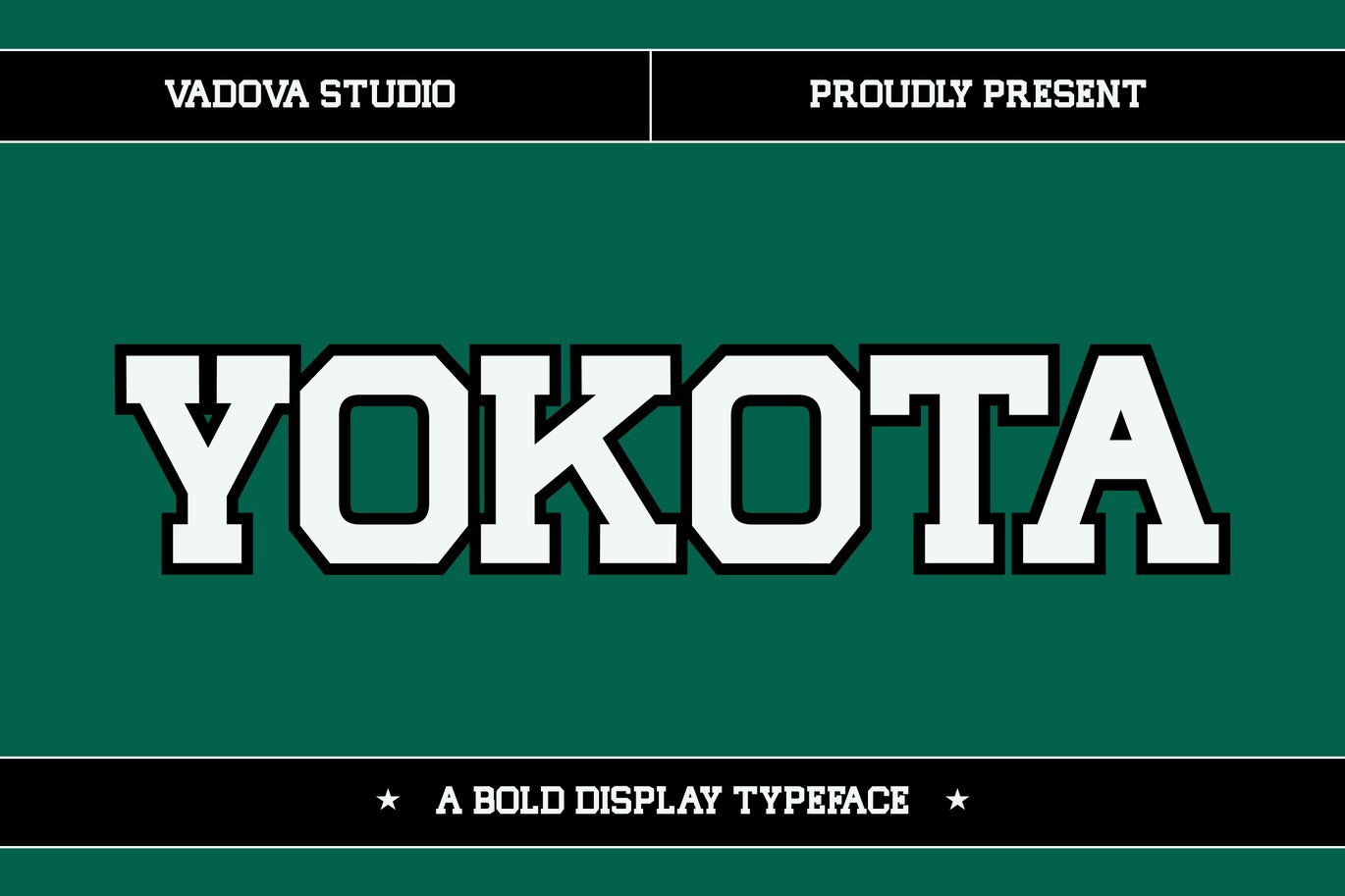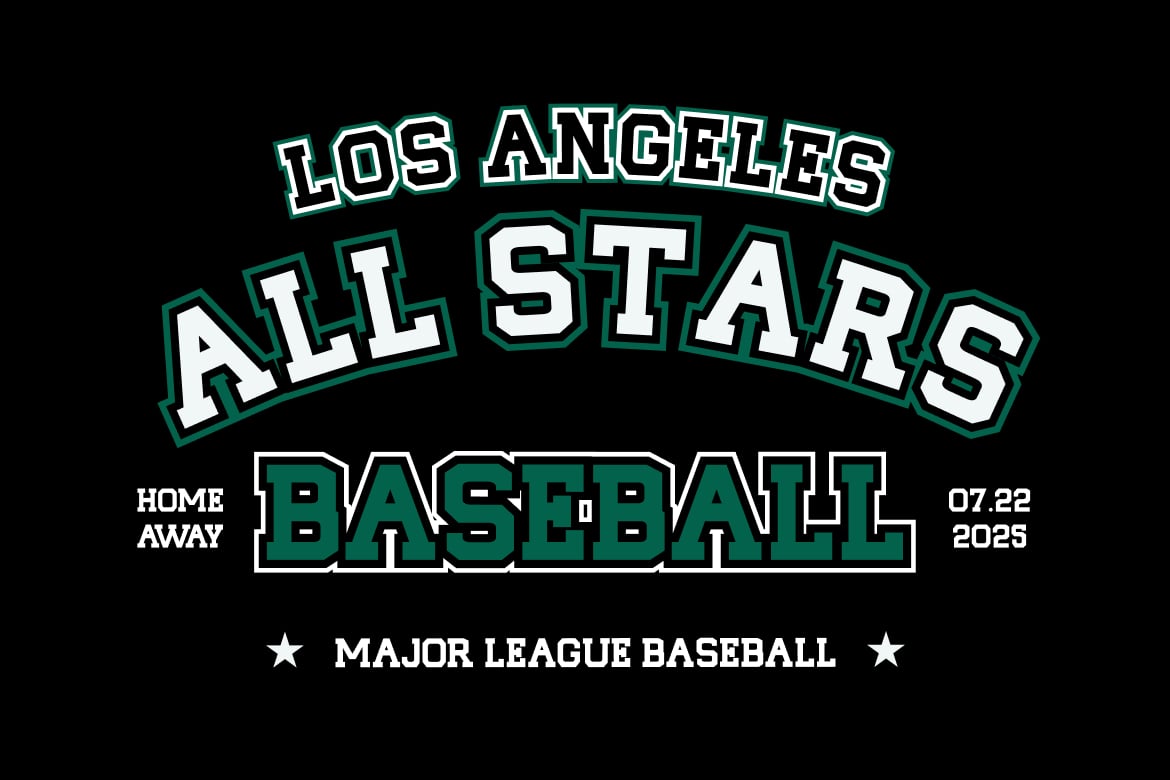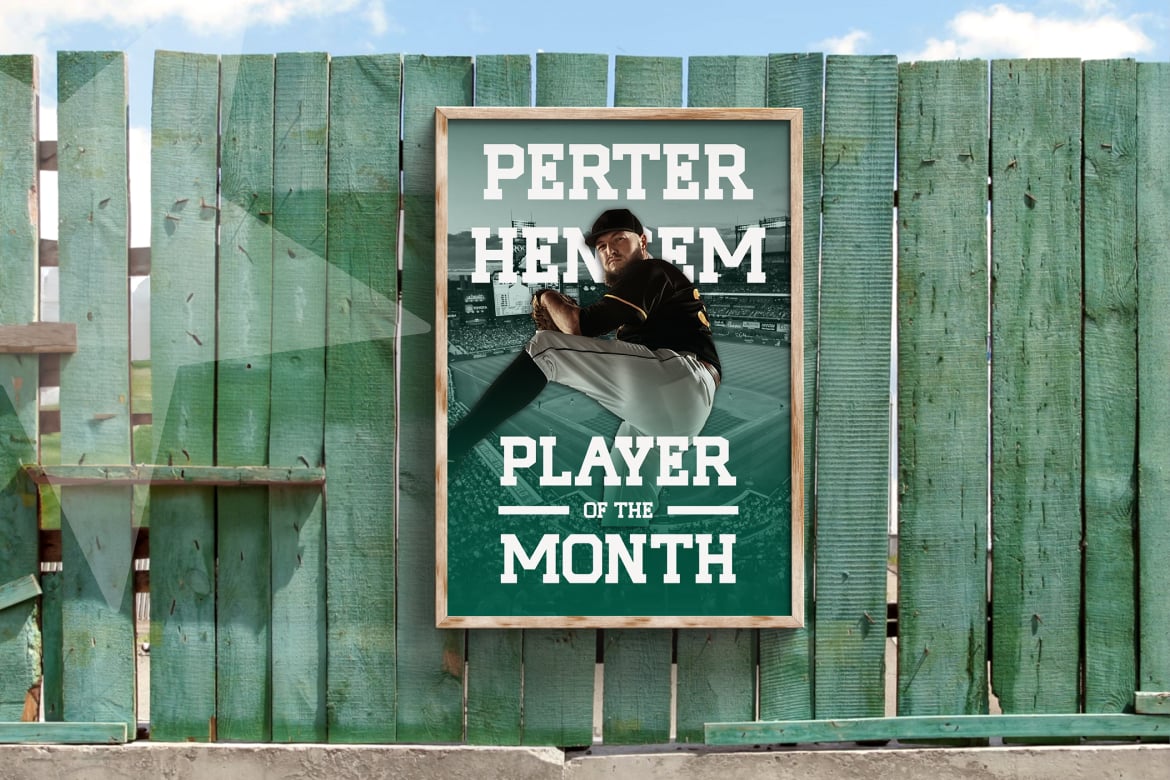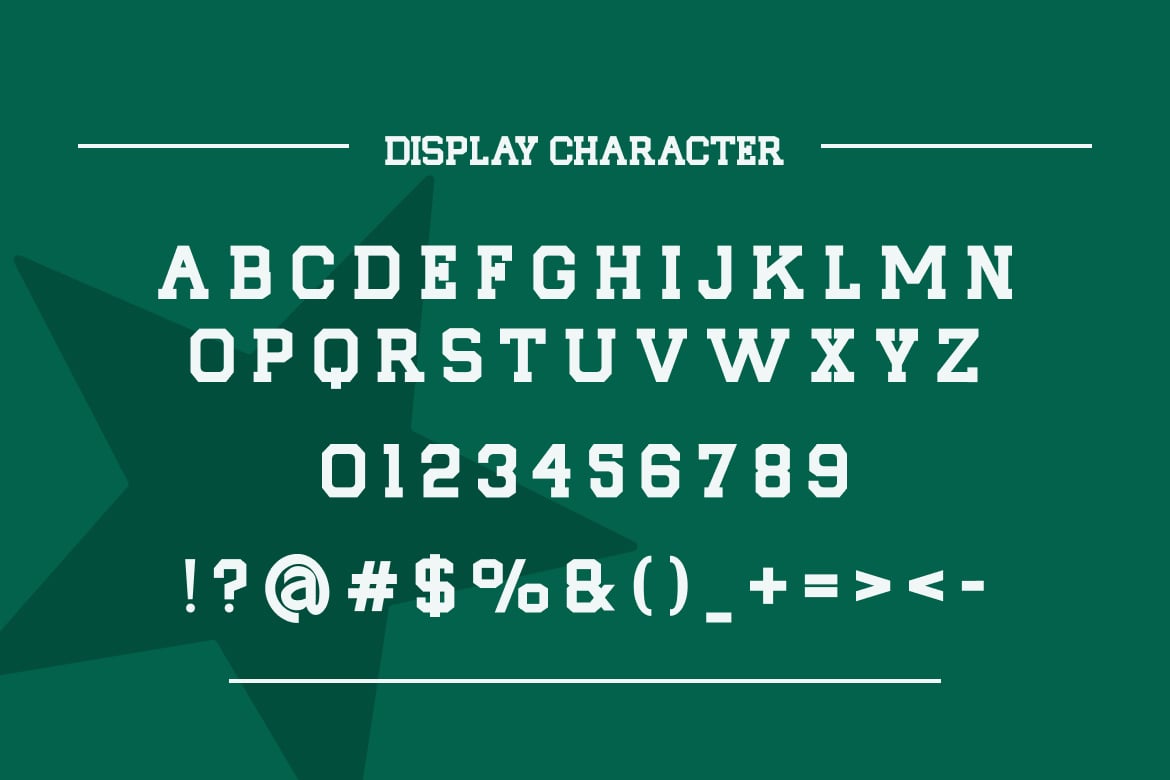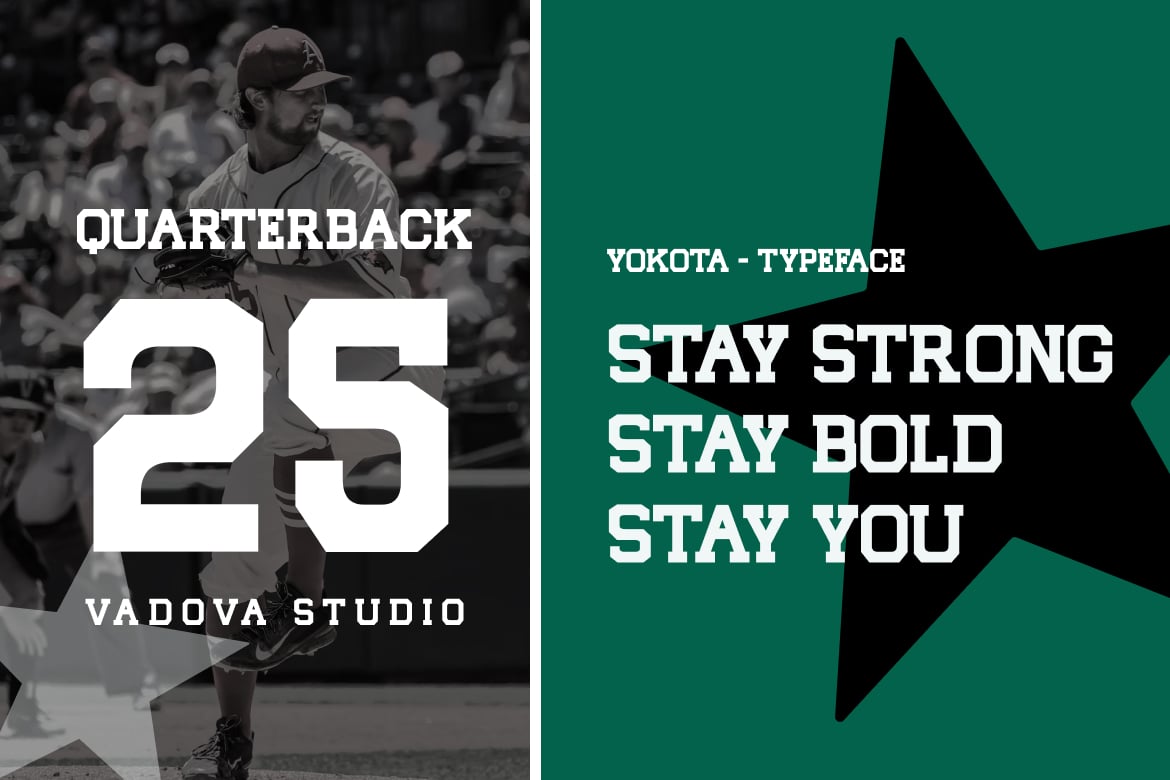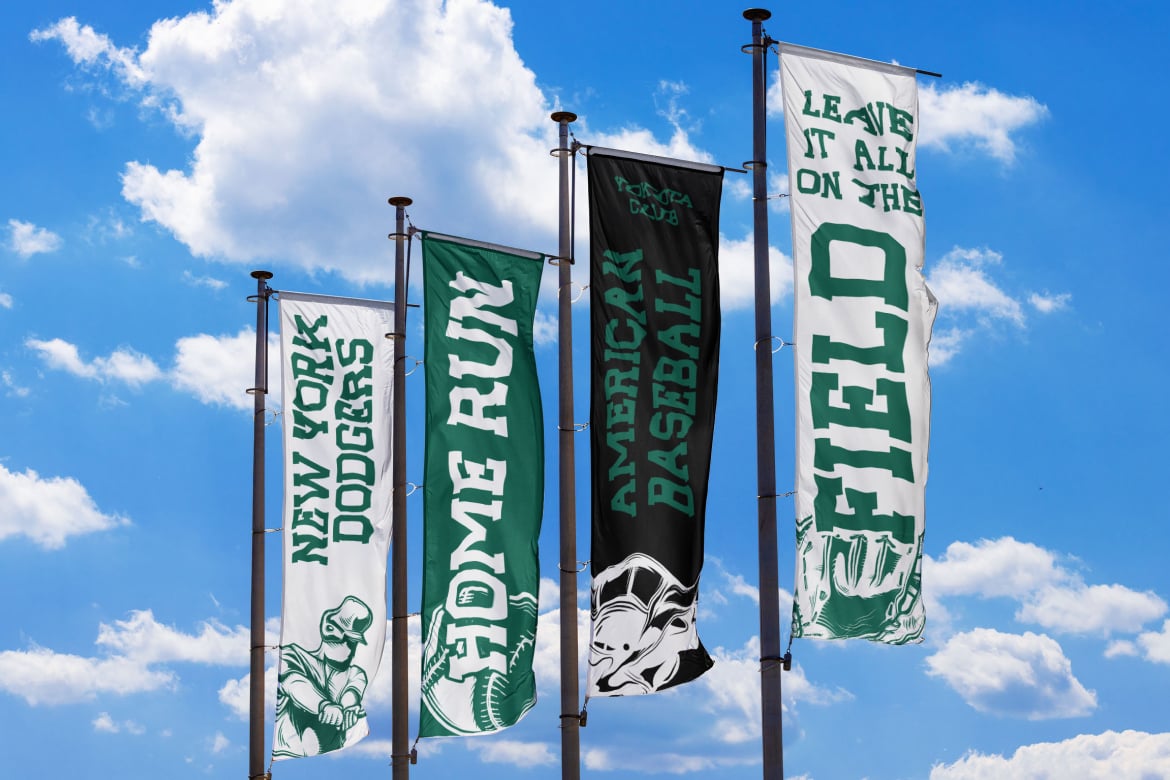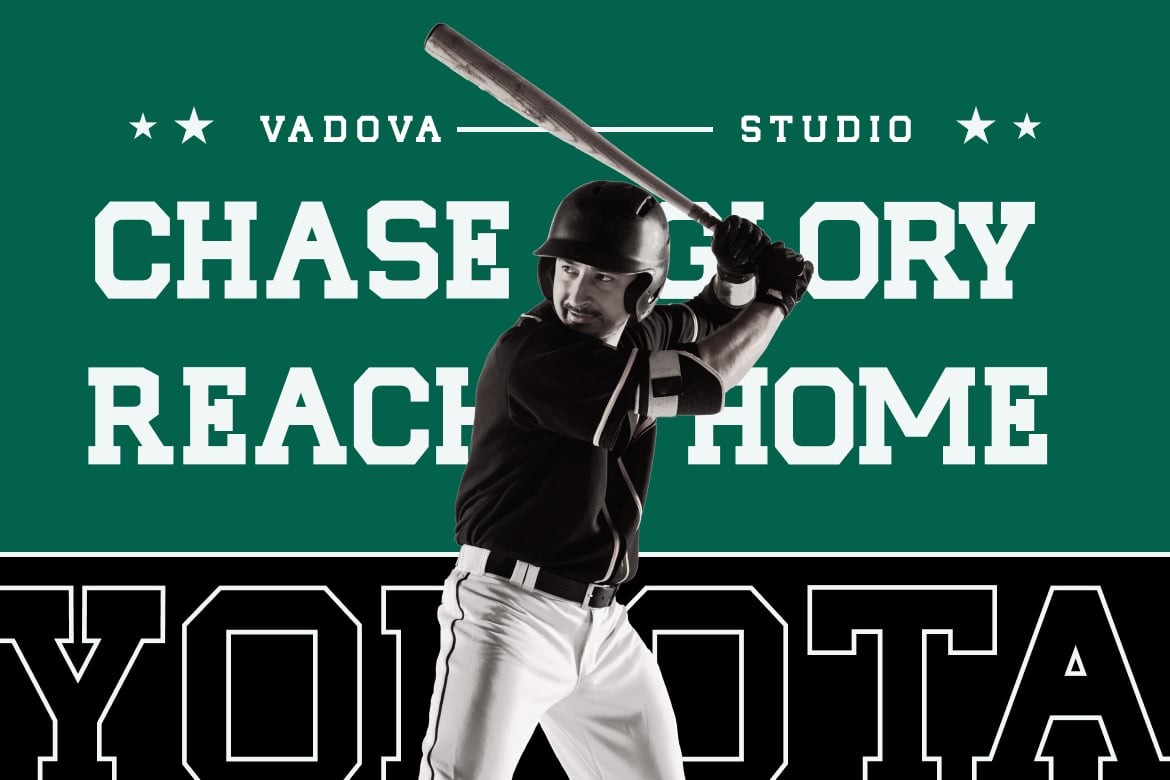
Yokota Bold Font
Yokota is a slab serif typeface inspired by classic varsity, sports, and collegiate lettering. Its strong, blocky characters with sharp edges and a thick outline make it perfect for headlines, team logos, posters, and apparel branding. The font exudes confidence and power, making it ideal for sports-related designs, championship titles, and vintage-style typography. With its striking presence and readability, Yokota brings an energetic and competitive spirit to any project.